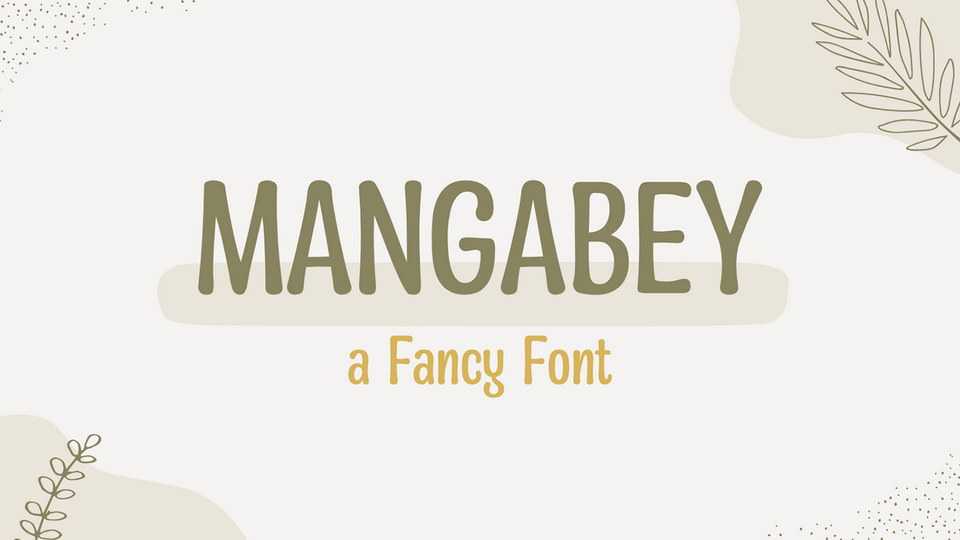
Download Mangabey font, a fancy handwritten typeface with a simple and organic appearance. Mangabey font will elevate a wide range of crafting ideas, from cards, to branding, labels and much more.